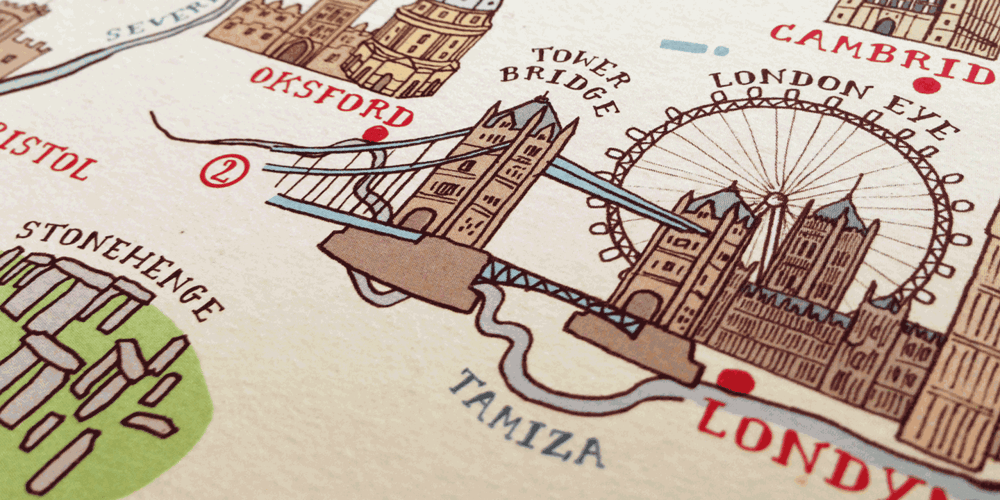
Cartographer Font Family was designed by Aleksandra and Daniel MizieliĆscy and published by Hipopotam Studio. Cartographer contains 1 styles and family package options. Cartographer by Hipopotam Studio is a hand drawn serif typeface designed for our book Maps. Drawn with a 0.1 mm tip pen in a very small scale. It has only uppercase characters but each has alternate glyphs. It also has a lot of very useful features including multi-language support (with Cyrillic), discretionary ligatures, stylistic alternates, fractions, ordinals and contextual alternates that will automatically set alternate glyphs depending on frequency of appearance of the same character (even in web font but only in HTML5 browsers).